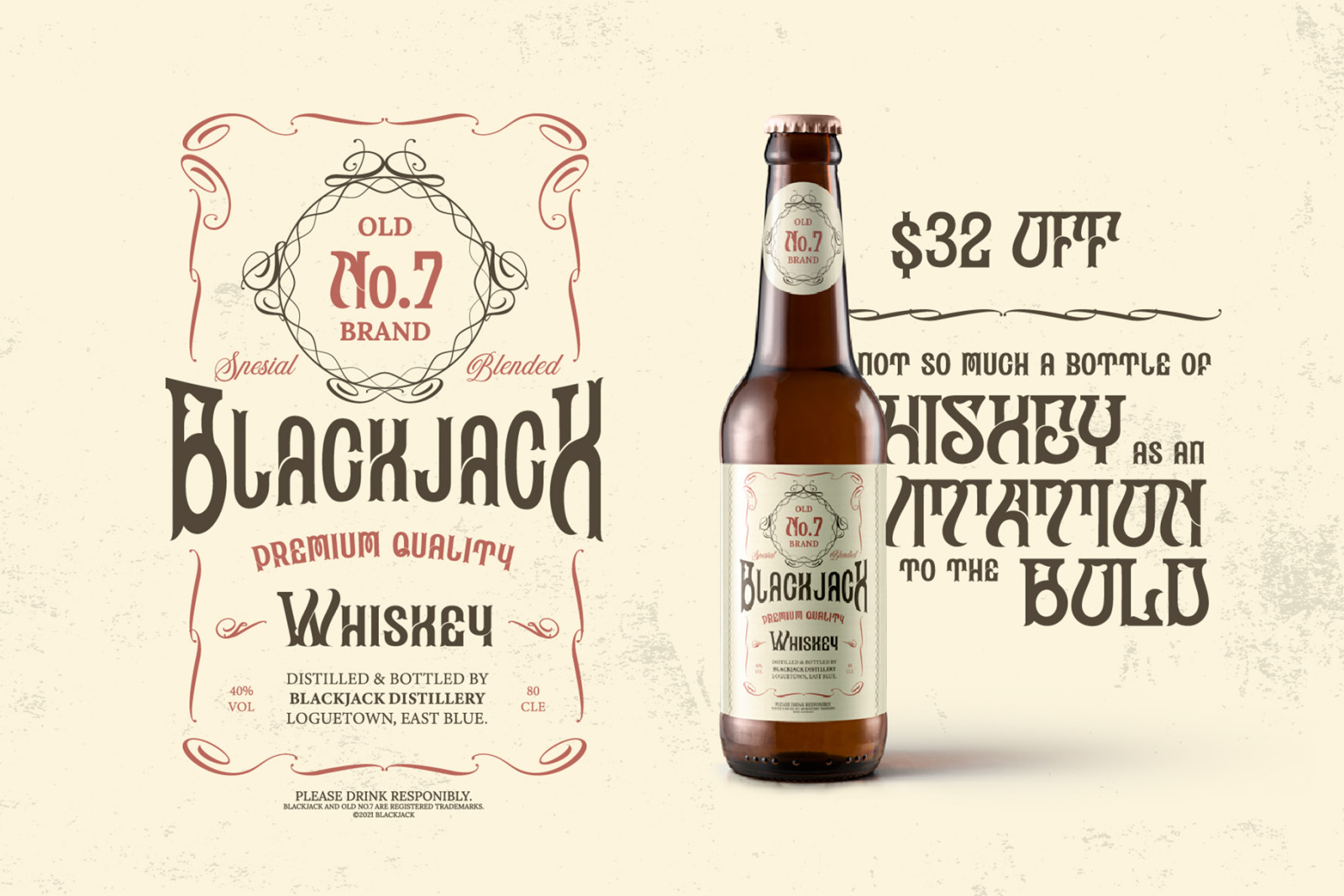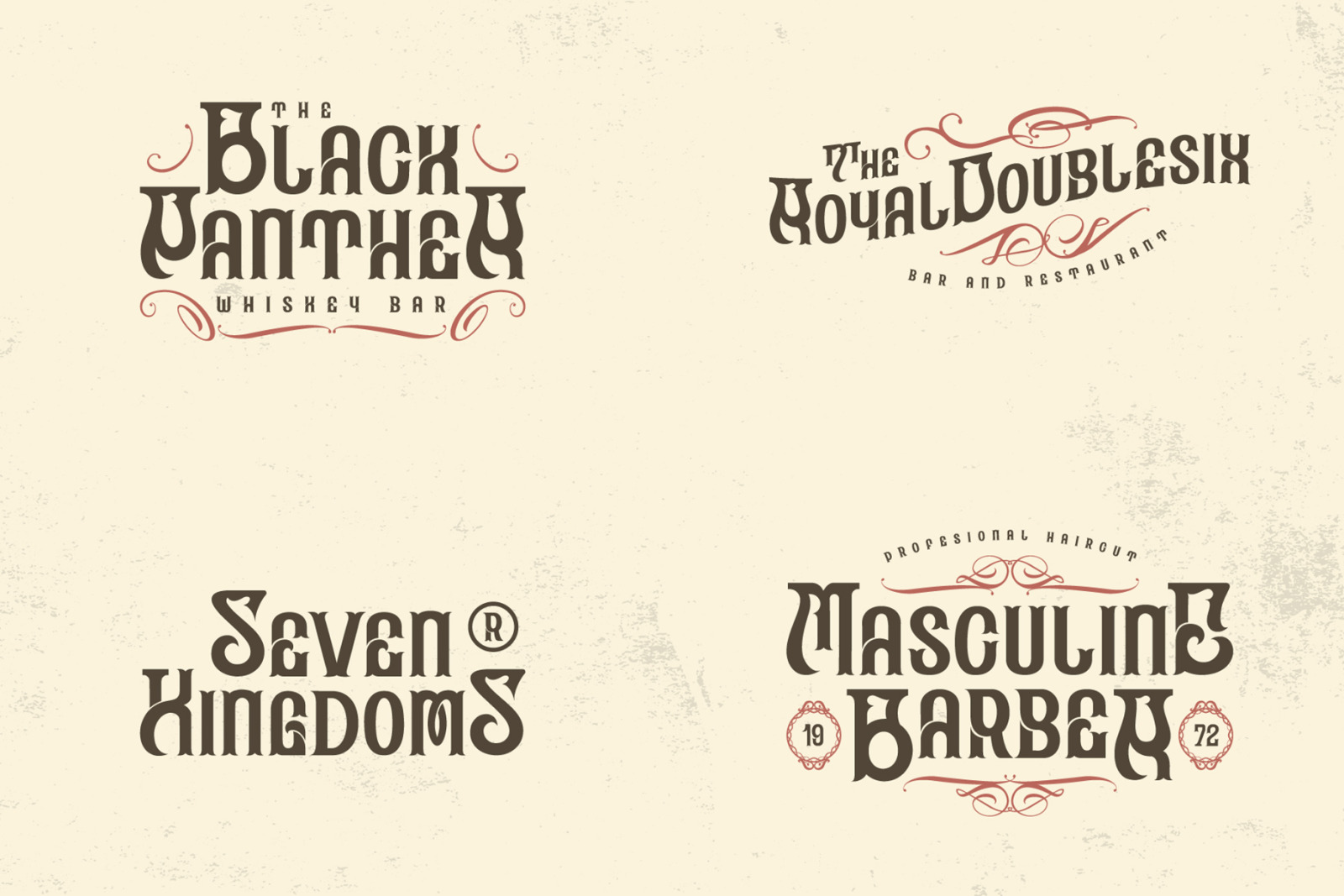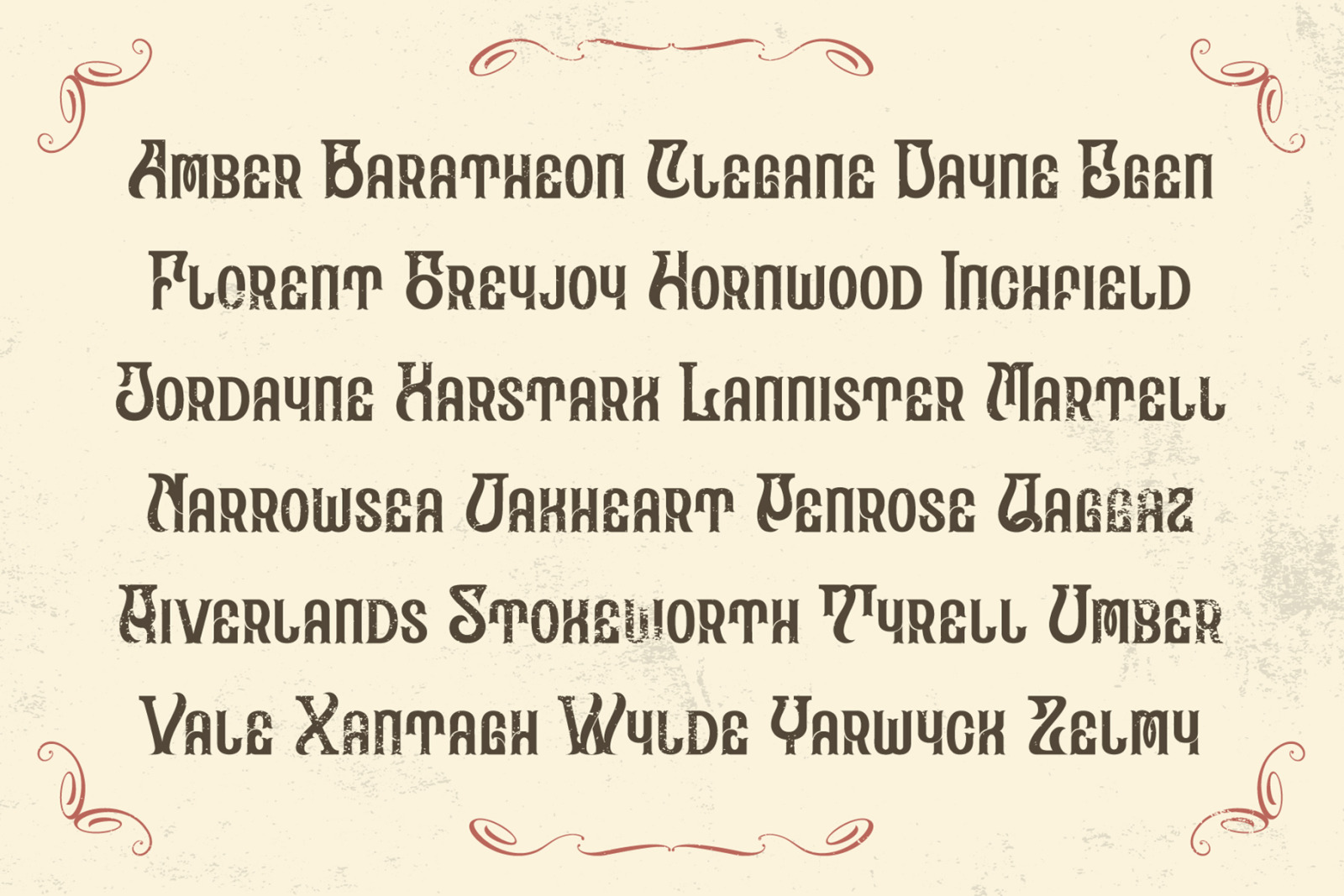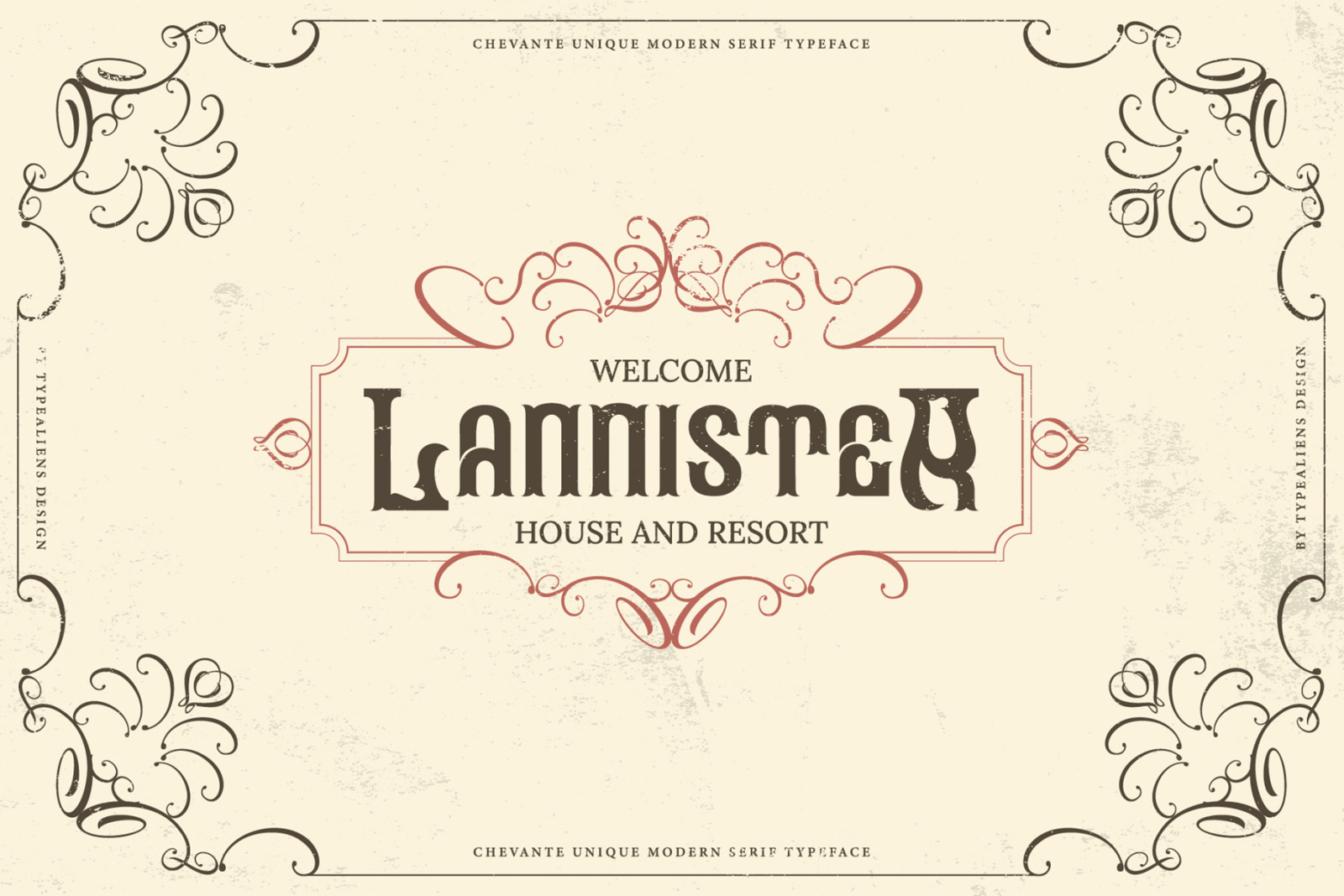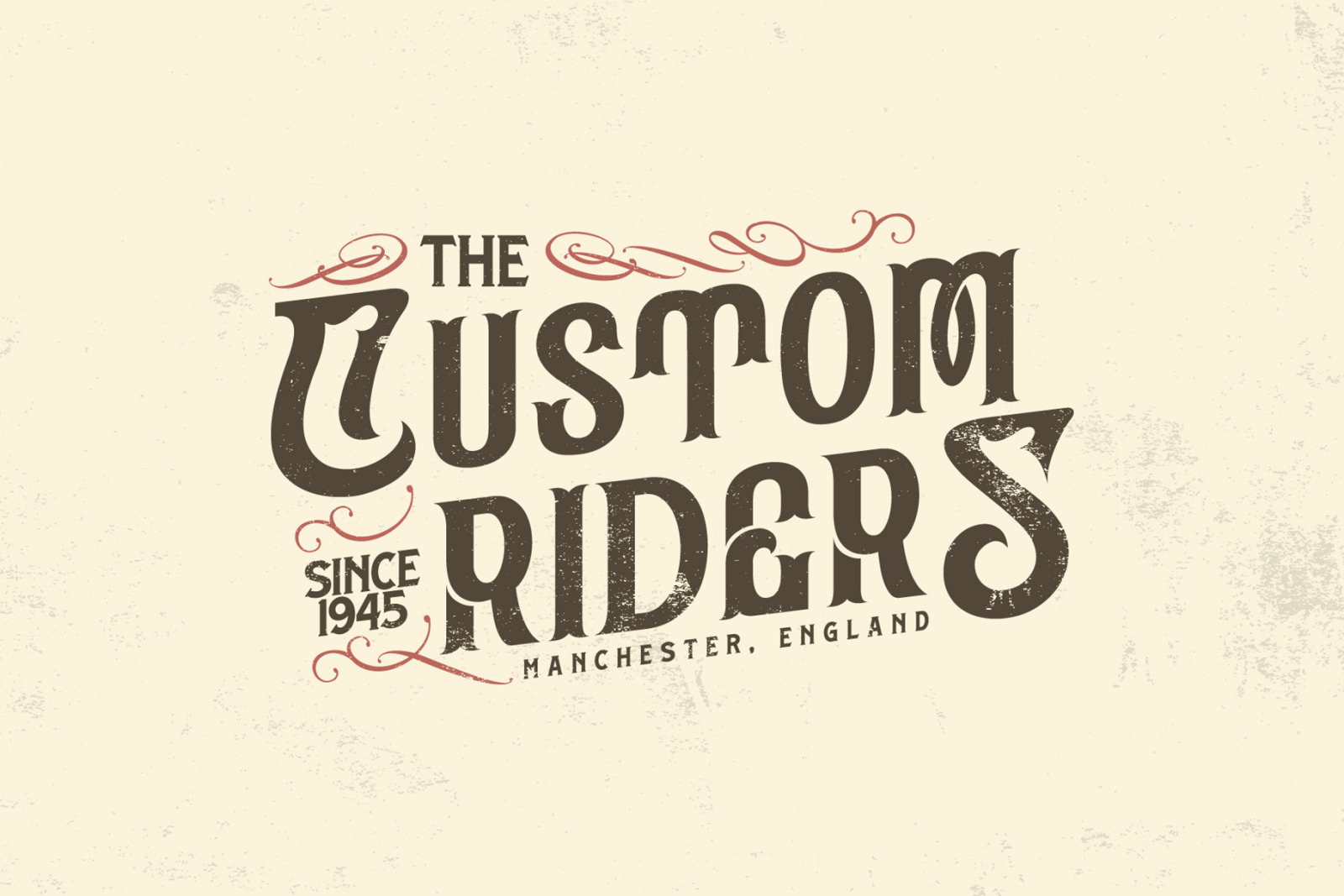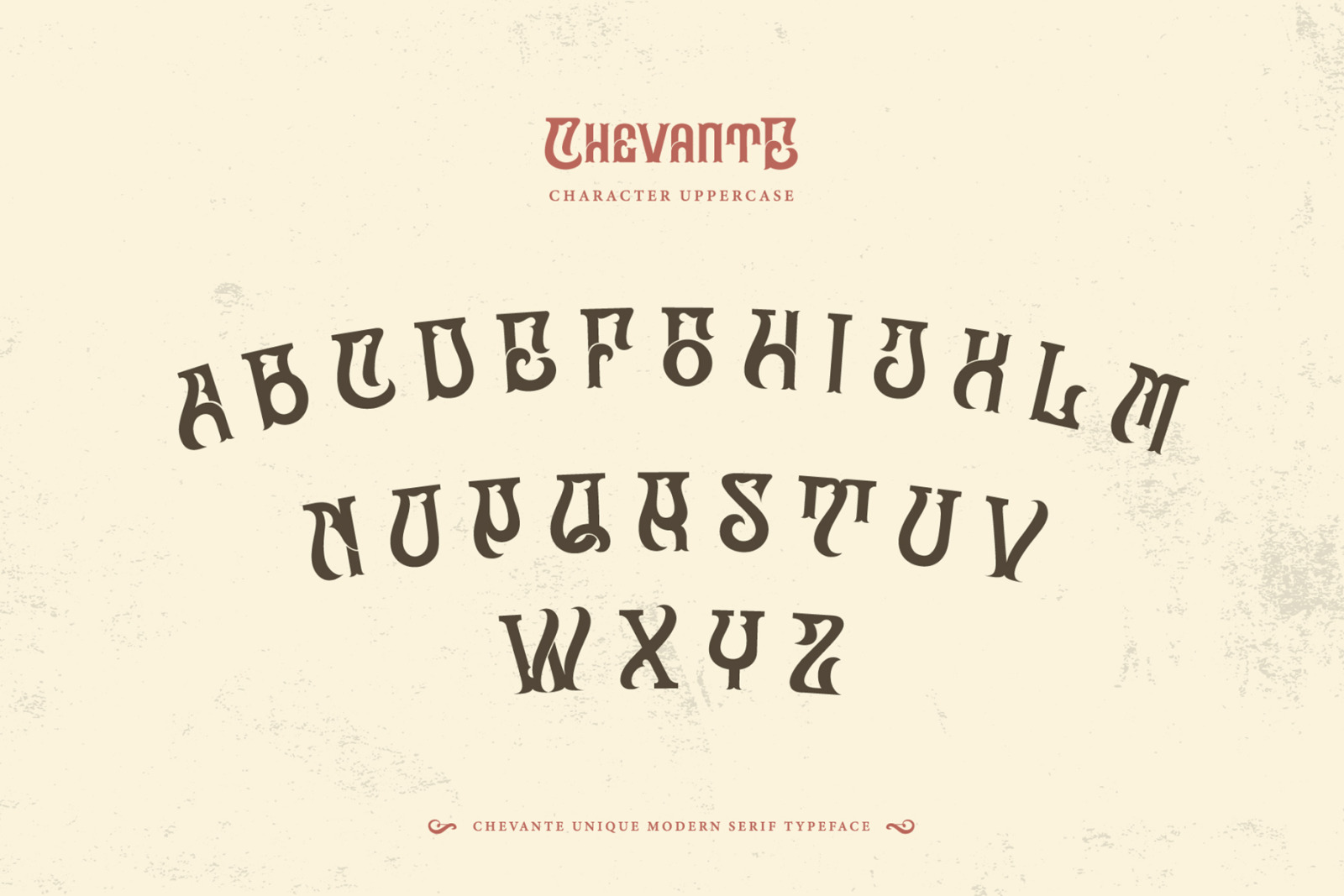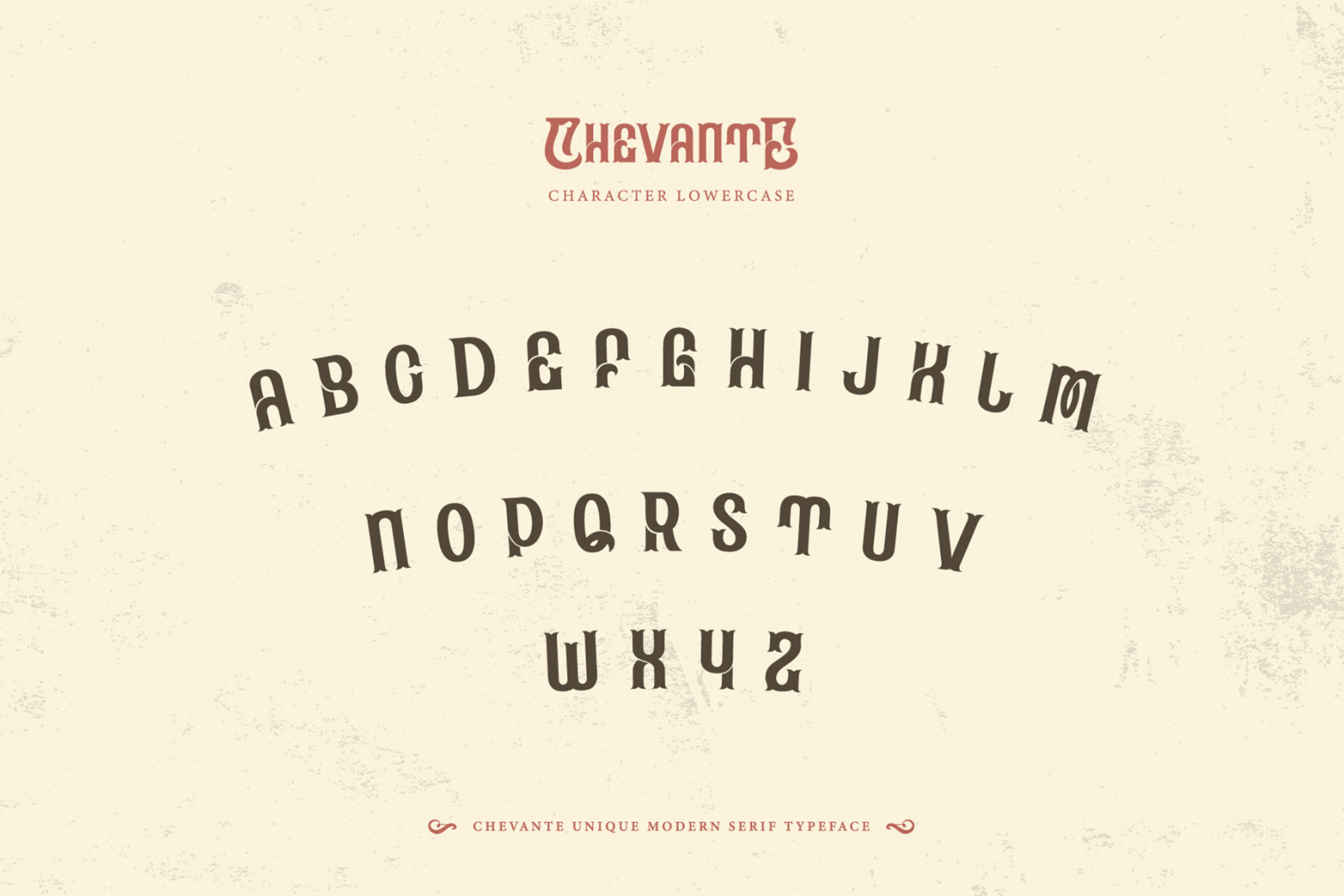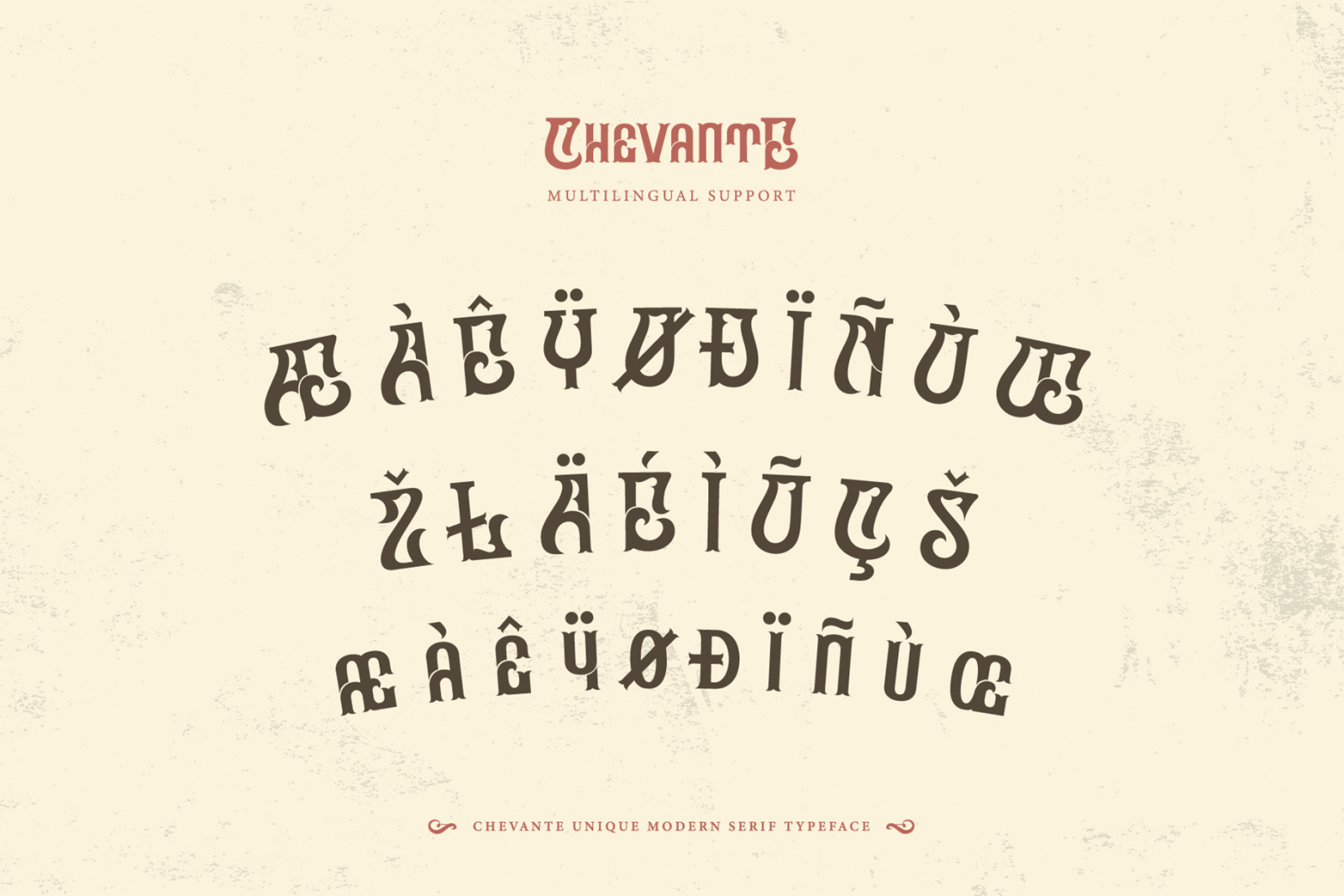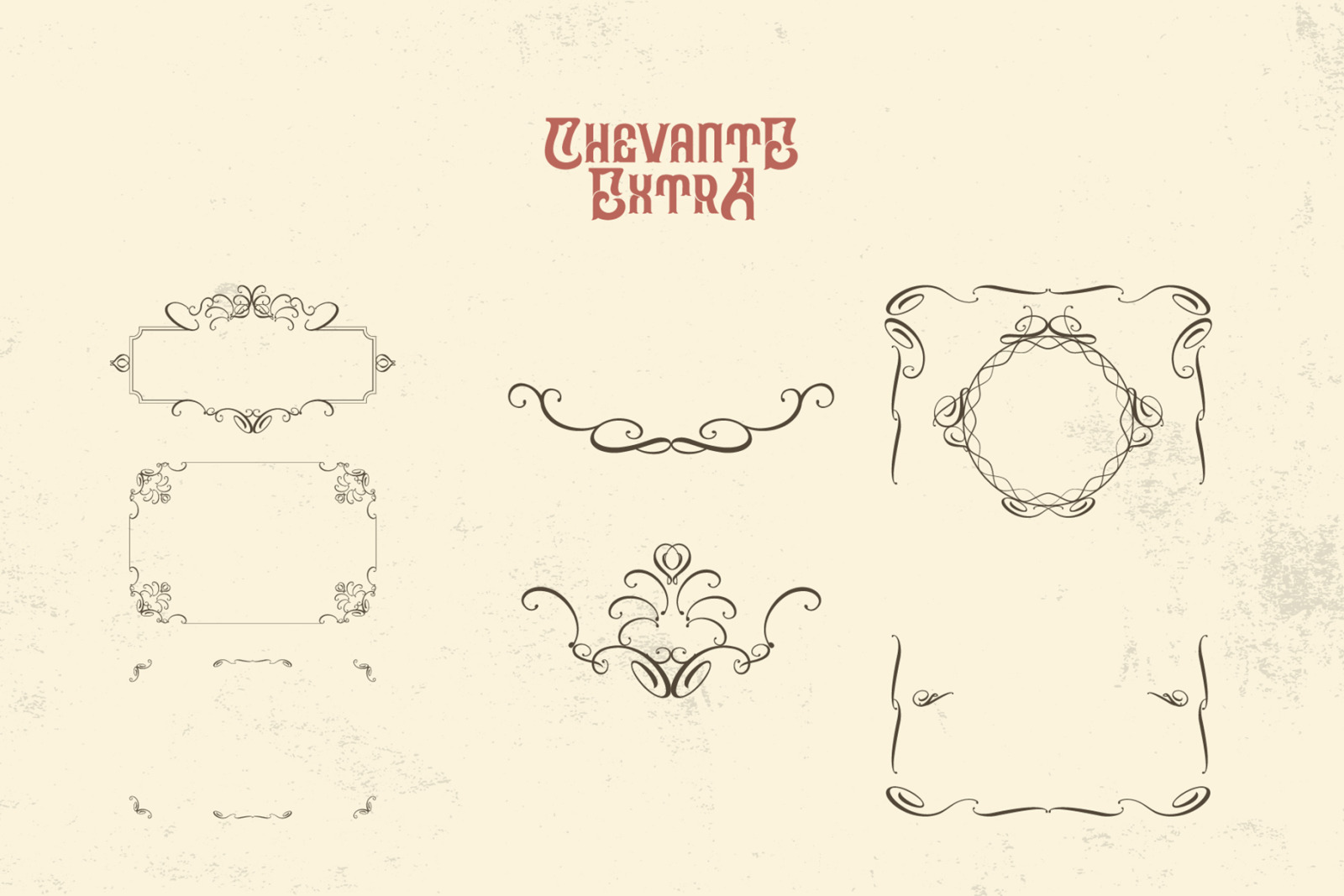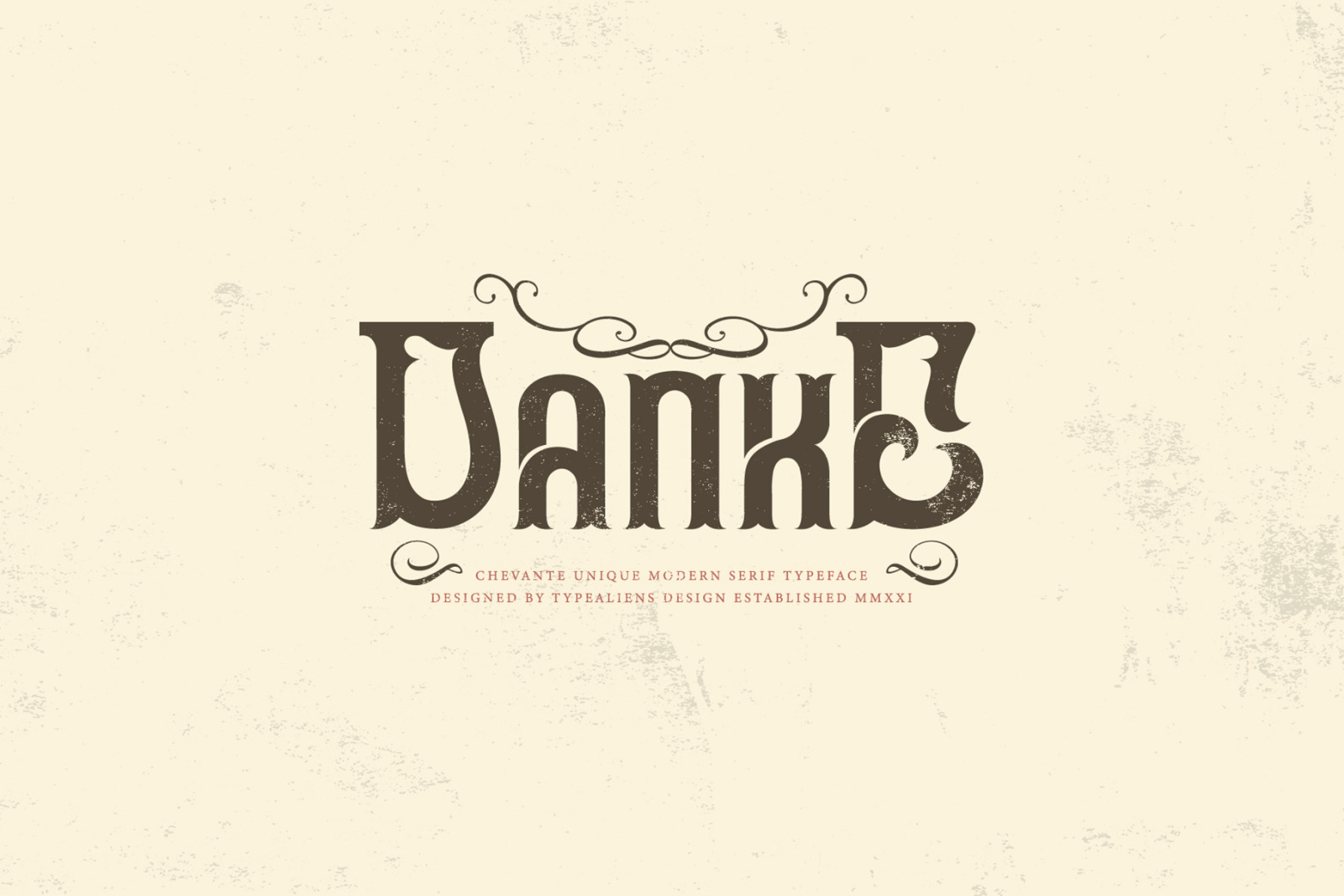
Chevante Font
CHEVANTE is a display font based on serif fonts with minimalistic hooks. With a vintage style so that it will make the design or logo you create have a classic and retro impression.
In addition to complete characters, there are extras in the form of decorative borders. Will add to your beautiful design and a strong vintage impression.